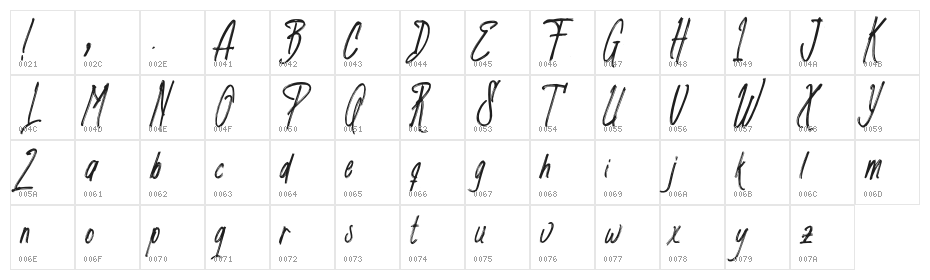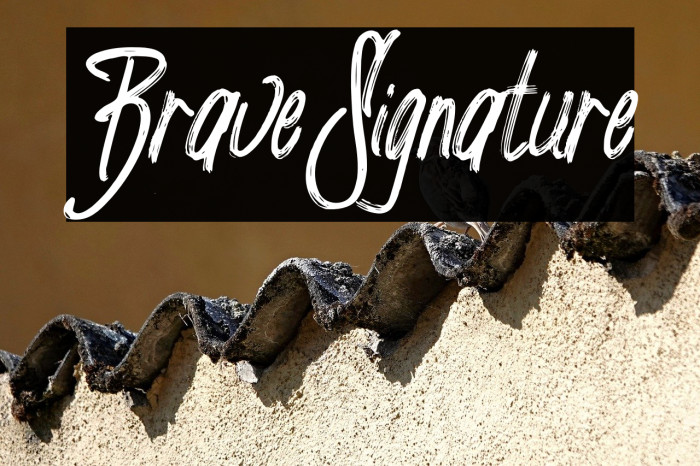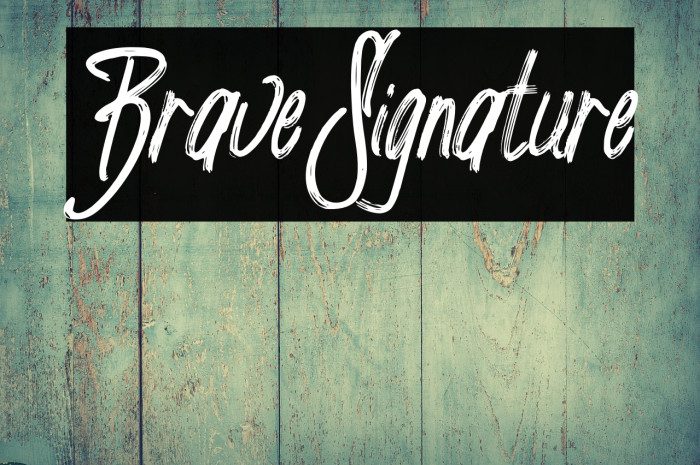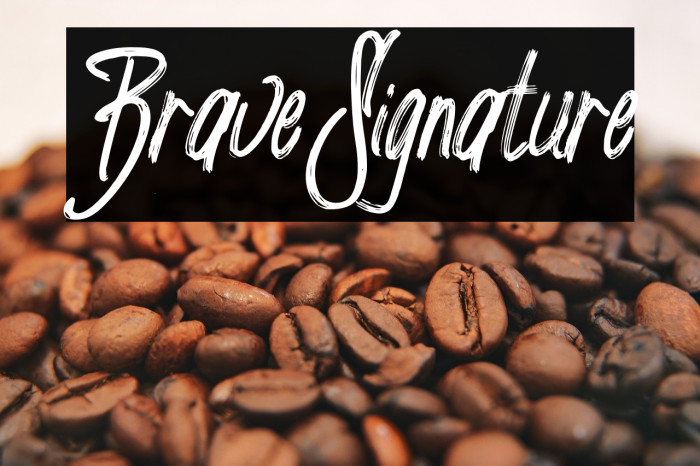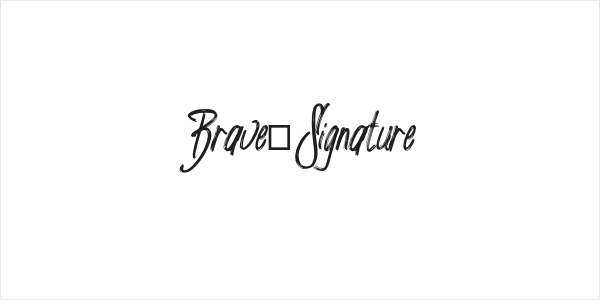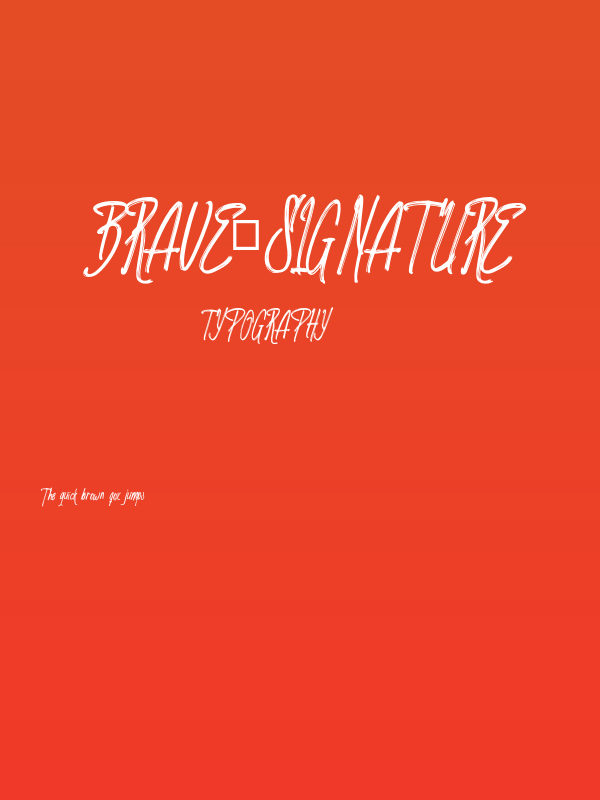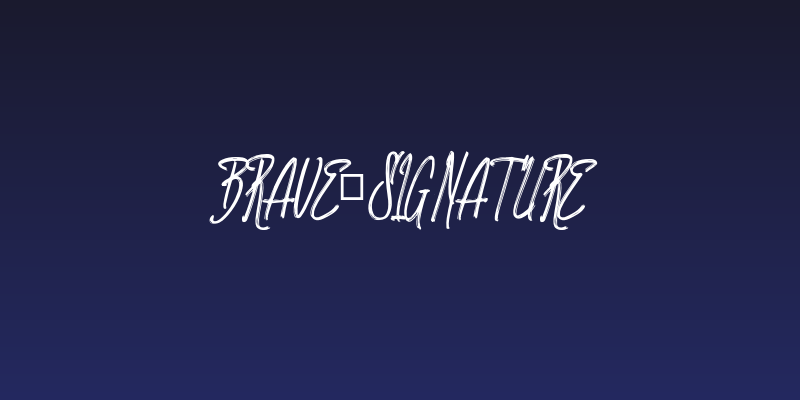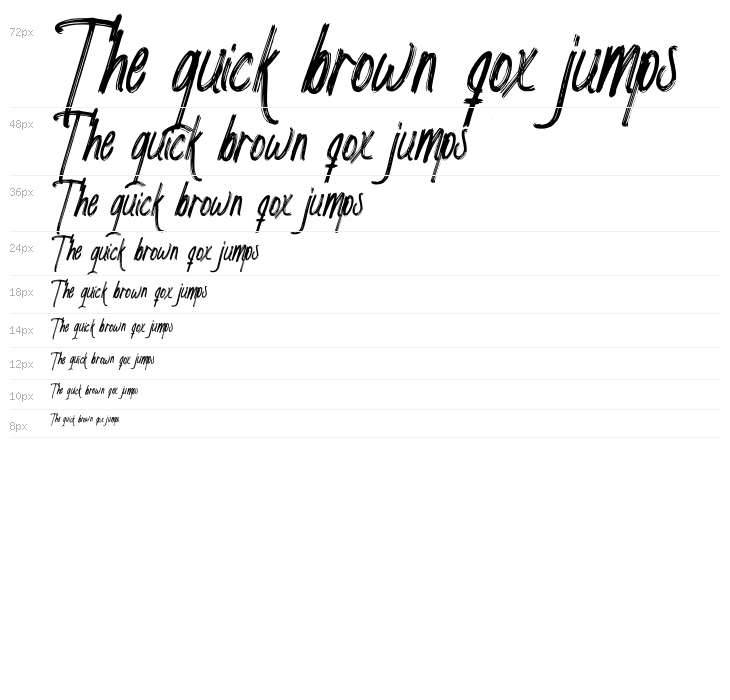
Brave_Signature Font
Brave_Signature Description
This font features a dynamic and expressive handwritten style, characterized by its fluid strokes and artistic flair. The uppercase letters are tall and slightly slanted, giving a sense of movement and energy. The lowercase letters maintain a cohesive flow, with some characters extending below the baseline, adding to the font's lively appearance. The strokes vary in thickness, providing a textured and brush-like effect that enhances its handcrafted feel. This font is ideal for projects that require a personal touch or a creative, informal vibe.
| Proposed Projects | Ideal for branding, invitations, greeting cards, and creative projects seeking a personal touch. |